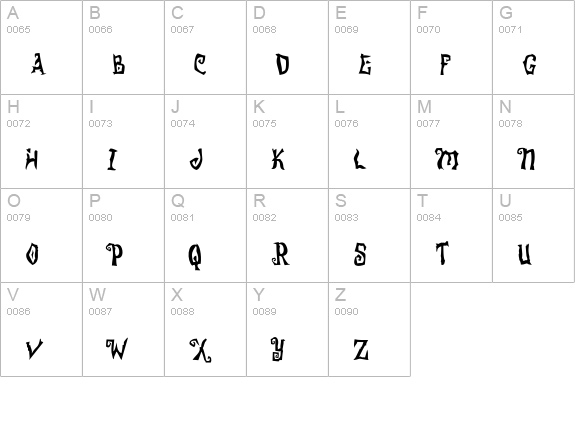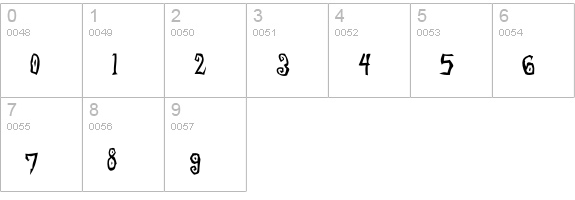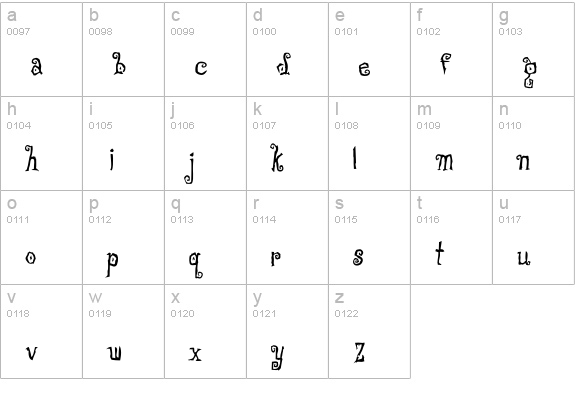
Freakshow-RealScary font is a spine-chilling typeface that will send shivers down your spine. With its twisted and eerie design, this font is perfect for creating a truly haunting atmosphere in your designs. The jagged edges and distorted shapes give off a sense of unease, making it ideal for Halloween-themed projects, horror movie posters, or anything that requires a touch of the macabre. What's even better is that Freakshow-RealScary font is completely free to download at FontsMarket.com. Yes, you read that right - you can get your hands on this terrifying font without spending a penny! So why wait? Bring your designs to life with the chilling allure of Freakshow-RealScary font today.